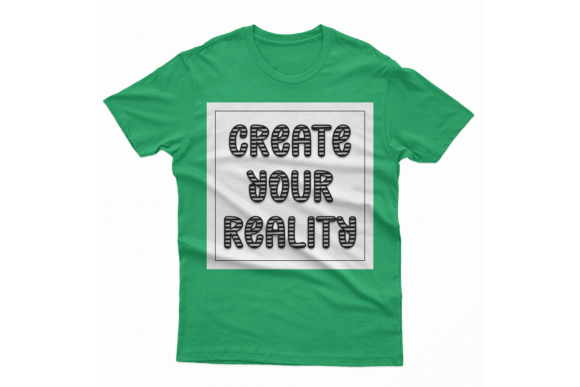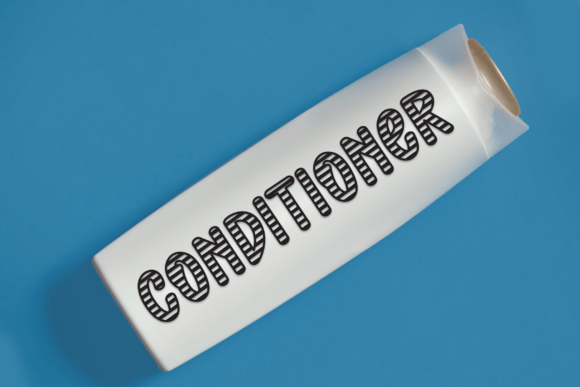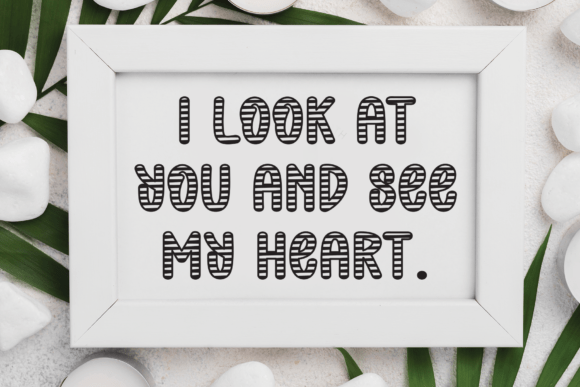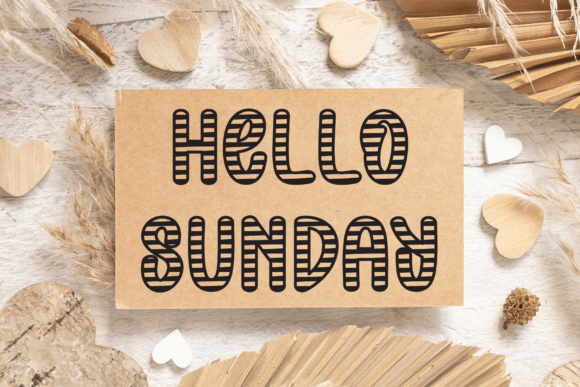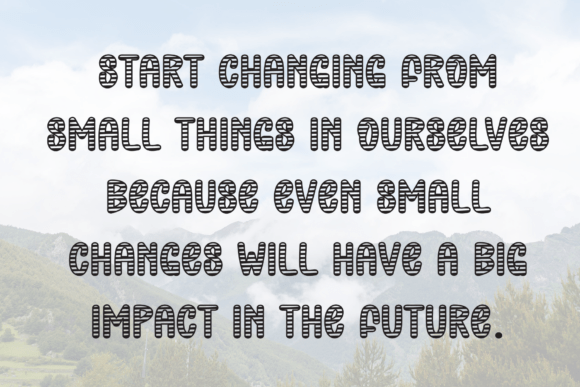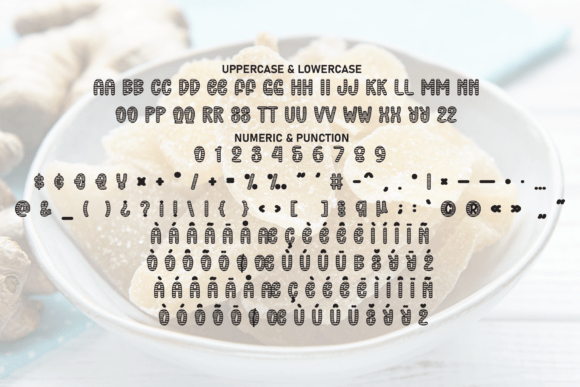
Candy Ginger Font: A Delightful Handwritten Display Typography
Are you looking for a font that can add a touch of whimsy and playfulness to your designs? Look no further than the Candy Ginger Font, also known as Sweeter Space. This charming handwritten display typography is perfect for designers and crafters who want to infuse their work with a sense of fun and amiability.
What is Sweeter Space?
Sweeter Space is a unique font that is bursting with charm. Its playful and amiable vibe makes it an ideal choice for a variety of design projects, from wedding invitations and greeting cards to posters, flyers, and more. This font is designed to add a touch of sweetness and elegance to your text, making it perfect for special occasions and celebrations.
Key Features of Sweeter Space
- Handwritten Display Typography: Sweeter Space is a handwritten display typography that is designed to make your text stand out. Its unique and elegant lettering makes it perfect for headlines, titles, and other display text.
- Playful and Amiable Vibe: This font has a playful and amiable vibe that makes it perfect for designs that require a touch of fun and whimsy.
- Whimsical Touch: Sweeter Space is designed to add a whimsical touch to your designs. Its unique lettering and charming aesthetic make it perfect for designs that require a sense of playfulness and creativity.
- Perfect for Wedding Invitations and Greeting Cards: This font is perfect for wedding invitations, greeting cards, and other special occasion designs. Its elegant and sophisticated aesthetic makes it ideal for formal events and celebrations.
Endless Possibilities with Sweeter Space
Sweeter Space is a versatile font that can be used in a variety of design projects. Here are some ideas to get you started:
- Wedding Invitations: Use Sweeter Space to create beautiful and elegant wedding invitations that set the tone for your special day.
- Greeting Cards: This font is perfect for creating greeting cards for special occasions such as birthdays, anniversaries, and holidays.
- Posters and Flyers: Use Sweeter Space to create eye-catching posters and flyers that grab attention and make a lasting impression.
- Social Media Graphics: This font is perfect for creating social media graphics that require a touch of fun and whimsy.
Why Choose Sweeter Space?
There are many reasons why you should choose Sweeter Space for your design projects. Here are a few:
- Unique and Elegant Aesthetic: Sweeter Space has a unique and elegant aesthetic that sets it apart from other fonts.
- Playful and Amiable Vibe: This font has a playful and amiable vibe that makes it perfect for designs that require a touch of fun and whimsy.
- Easy to Read and Understand: Sweeter Space is easy to read and understand, making it perfect for designs that require clear and concise communication.
- Versatile and Flexible: This font is versatile and flexible, making it perfect for a variety of design projects and applications.
In conclusion, Sweeter Space is a delightful handwritten display typography that is perfect for designers and crafters who want to add a touch of whimsy and playfulness to their designs. Its unique and elegant aesthetic, playful and amiable vibe, and versatility make it an ideal choice for a variety of design projects. Whether you’re creating wedding invitations, greeting cards, posters, or social media graphics, Sweeter Space is a font that can help you achieve your design goals.
Get Ready to Transform Your Text into an Artistic Masterpiece